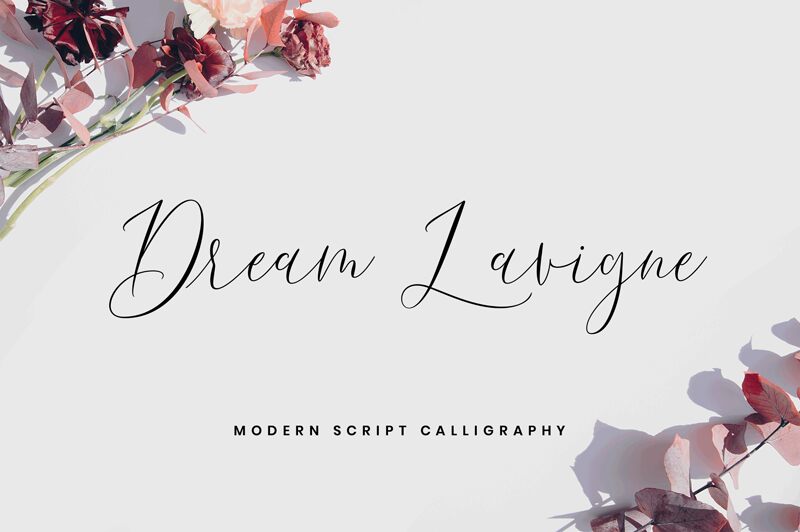
Dream Lavigne Script, designed by Sizimon.id, is a captivating handwritten font that exudes elegance and charm. With its light weight, this enchanting typeface adds a delicate touch to any project. Perfect for invitations, greeting cards, and wedding stationery, Dream Lavigne Script lends an air of sophistication to your special occasions. Its flowing strokes and graceful curves bring a sense of romance to branding materials, such as logos and packaging designs. This font is sure to captivate your audience and leave a lasting impression on any creative endeavor.